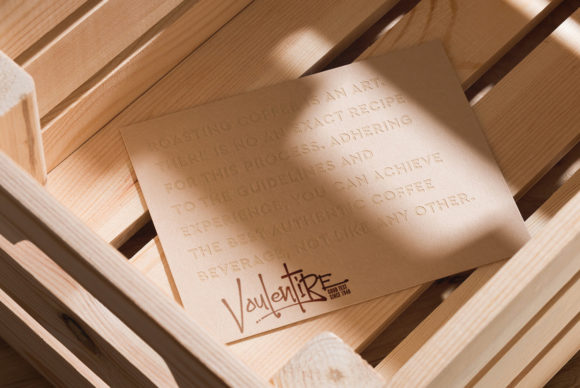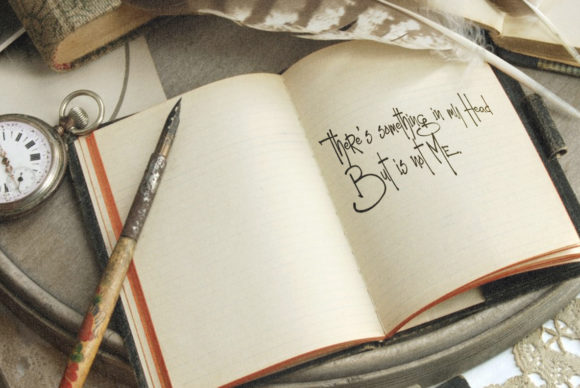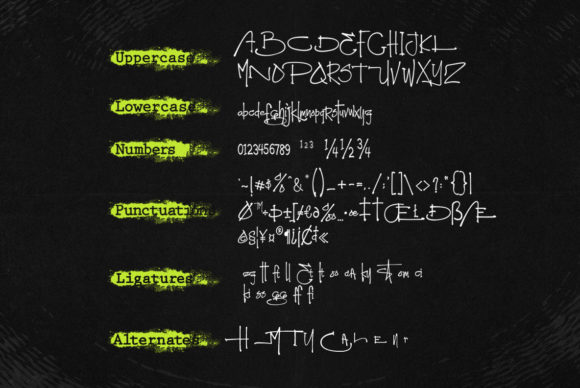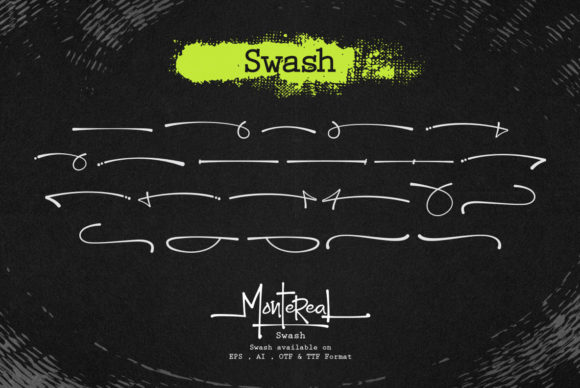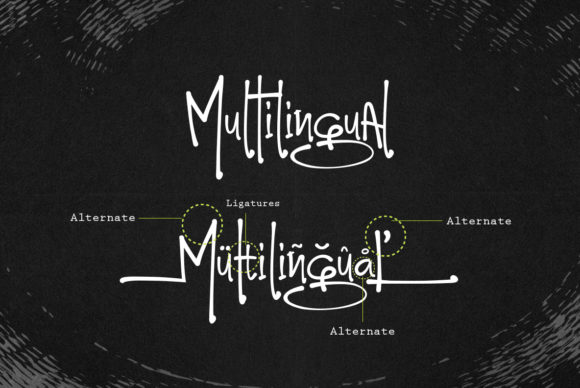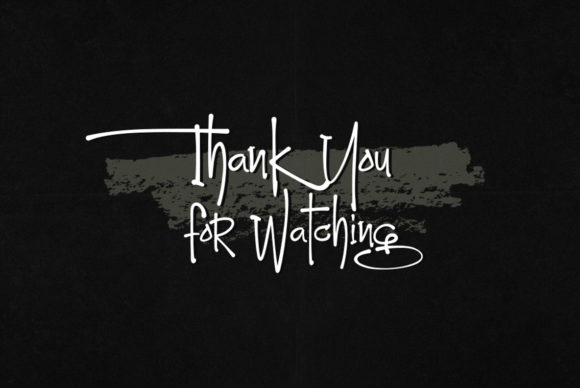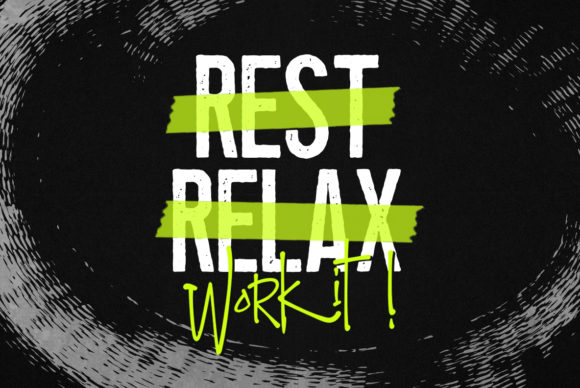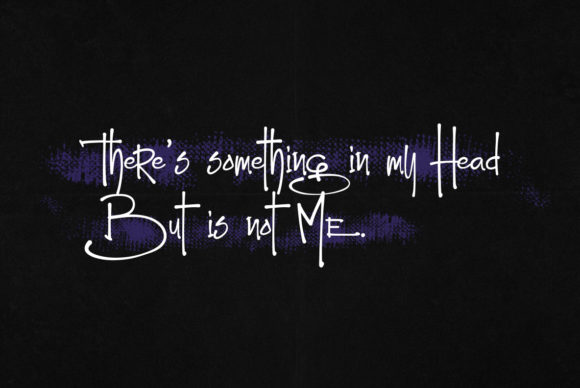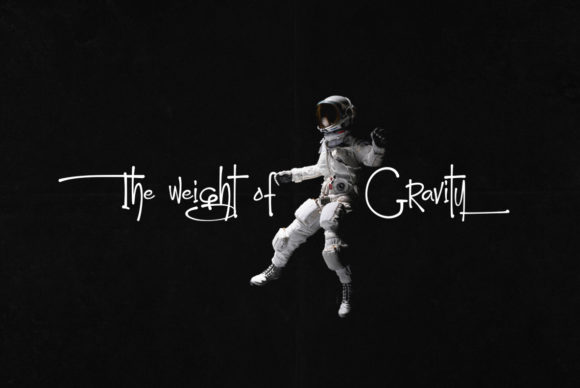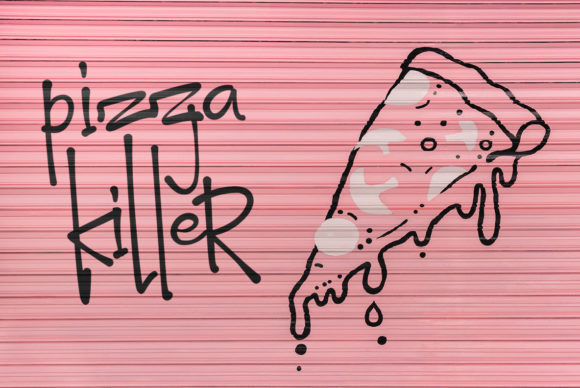
HomeScript FontsMotereal Font Script Fonts Motereal Font FacebookXPinterestWhatsApp Motereal Font Poster 2 Motereal Font Poster 3 Motereal Font Poster 4 Motereal Font Poster 5 Motereal Font Poster 6 Motereal Font Poster 7 Motereal Font Poster 8 Motereal Font Poster 9 Motereal Font Poster 10 Motereal Font Poster 11 Motereal Font Poster 12 Motereal Font Poster 13 Motereal Font Poster 14 Motereal Font Poster 15 About Motereal Font Motereal is a unique and fun script with a bold look. Get inspired by its contemporary charm! DOWNLOAD ON CREATIVE FABRICAThis font is sold and delivered by Creative Fabrica. Font Canyon may earn a commission if you buy through this link. People also explored Branding Font Straordinario Font Aprilra Font Chalinda Font Skull Font Backward Font The Moshbusther Delgonte Font Beautiful Beach Font 264 0 TagsMotereal Font Previous articleMistice FontNext articleHanberra Font LEAVE A REPLY Cancel reply Comment: Please enter your comment! Name:* Please enter your name here Email:* You have entered an incorrect email address! Please enter your email address here Website: Save my name, email, and website in this browser for the next time I comment. Personal Use Free Unsteady Overseer Personal Use Free Read more about this font Blast Personal Use Free Read more about this font Lollipop Melody Personal Use Free Read more about this font Hair Thinned Personal Use Free Read more about this font BLOG 5 Fonts That Will Dominate Design Trends in 2026 5 Fonts for 2026 That Will Dominate Design Trends Typography plays a critical role in visual communication, and as we look ahead to 2026, it’s... Top 10 Handwritten Fonts That Elevate Your Designs To increase your work productivity, choose the most readable fonts. The 10 Best Handwriting Fonts to Add Personality to Your Designs